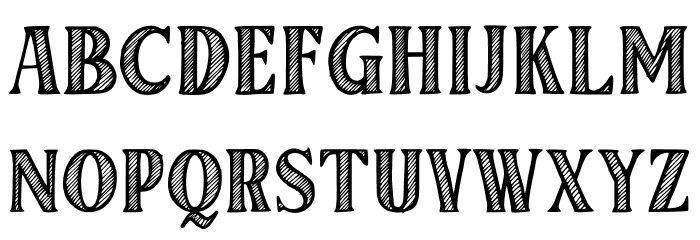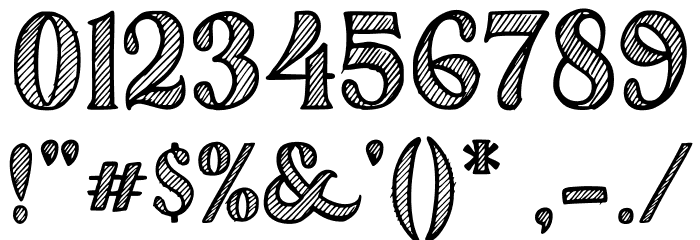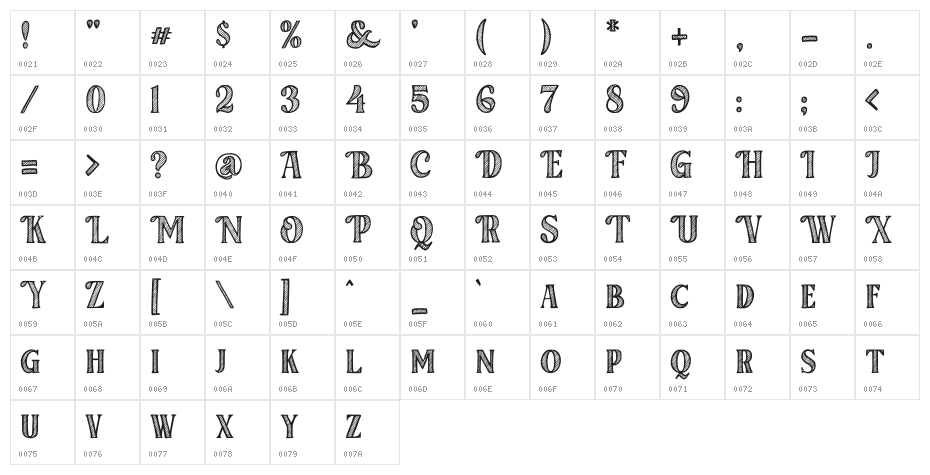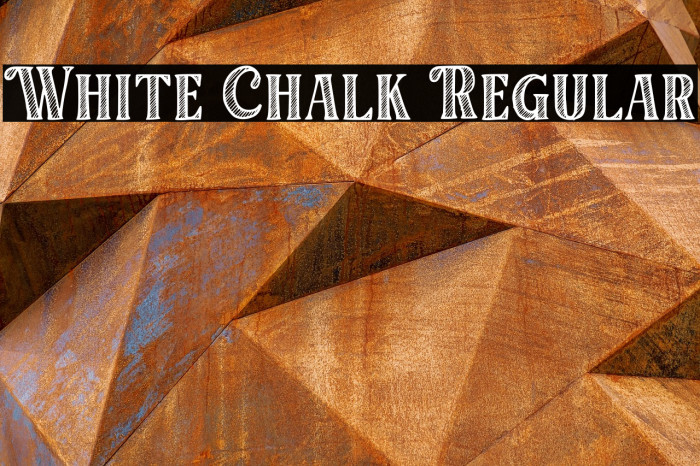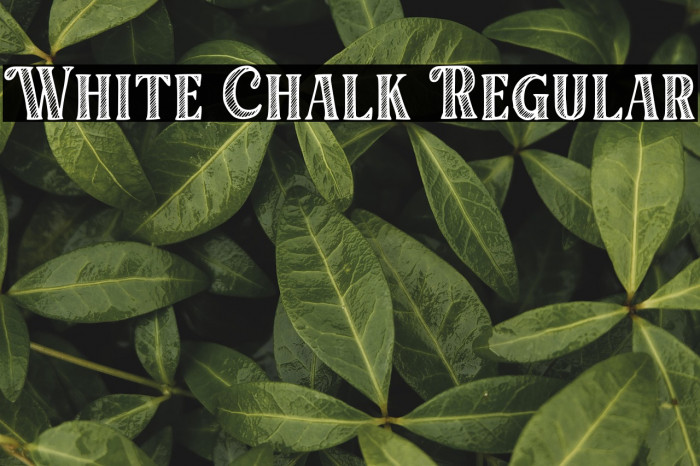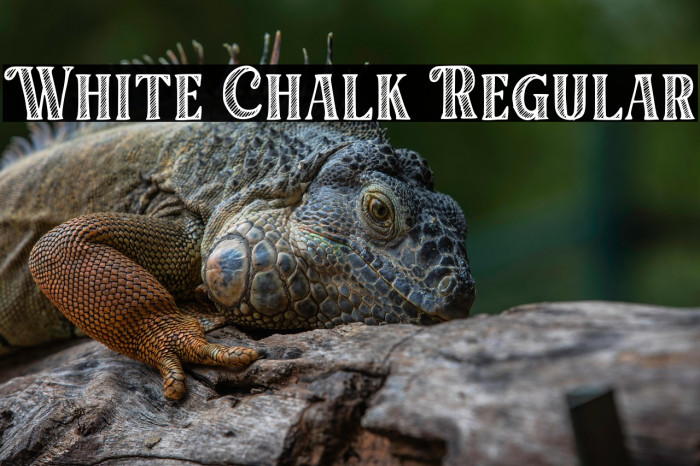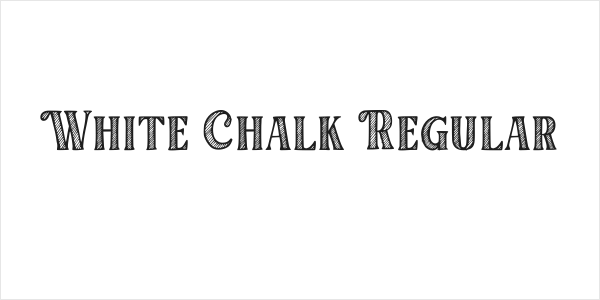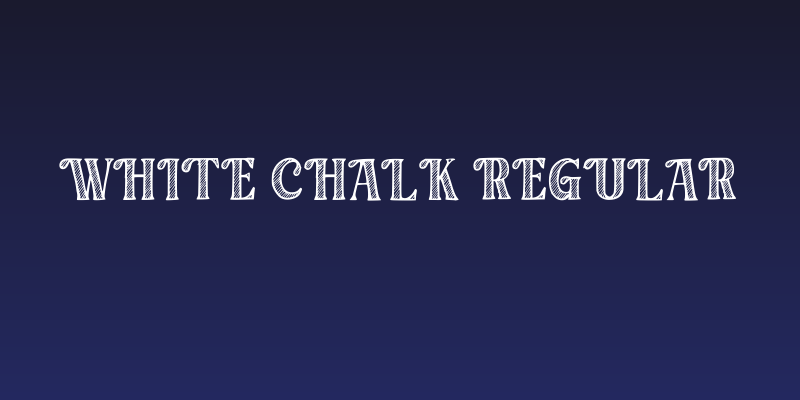
White Chalk Regular Font
This font features a bold, textured appearance reminiscent of chalk writing on a blackboard. Each character is filled with diagonal lines, creating a hand-drawn effect that adds depth and personality. The uppercase letters are strong and prominent, while the lowercase letters maintain the same textured style, ensuring consistency across the typeface. Numbers and special characters are equally bold and textured, making them stand out. The overall design is playful yet structured, suitable for projects that require a touch of creativity and informality.
A bold, textured font with a hand-drawn chalkboard style.
- Proposed Projects: Ideal for educational materials, playful branding, posters, and creative invitations.